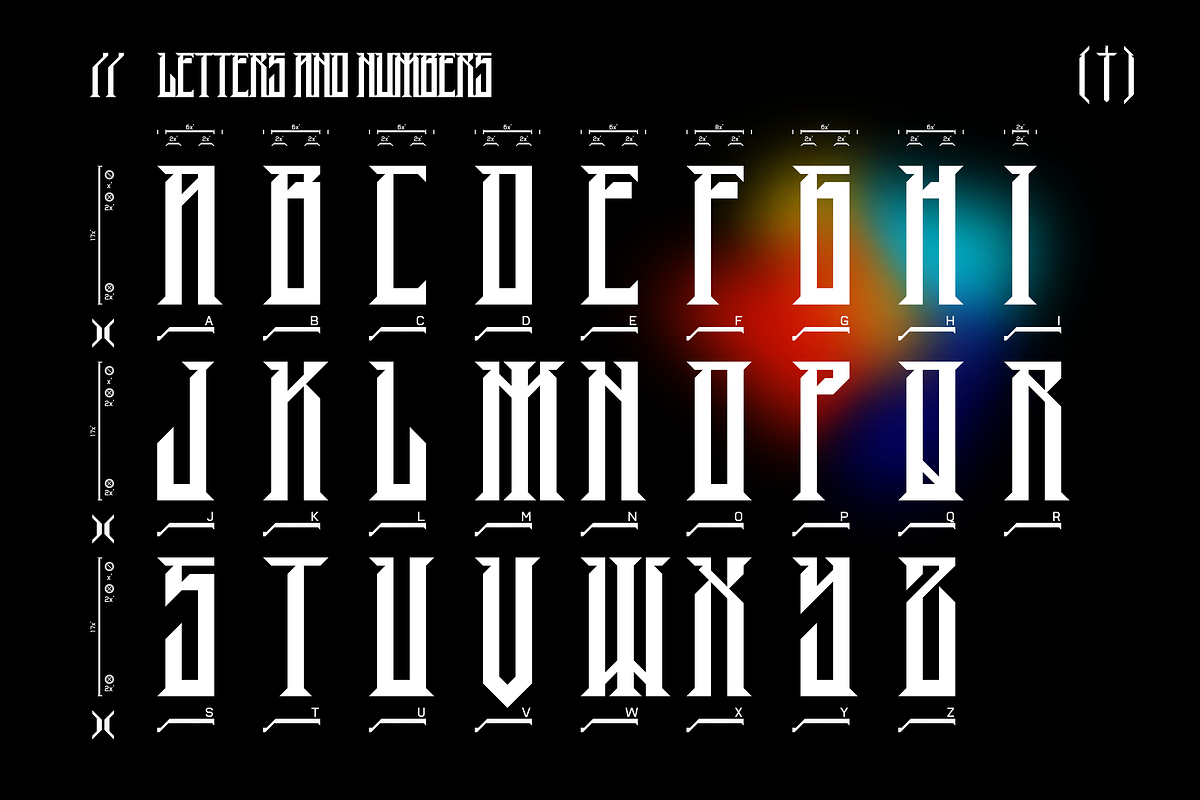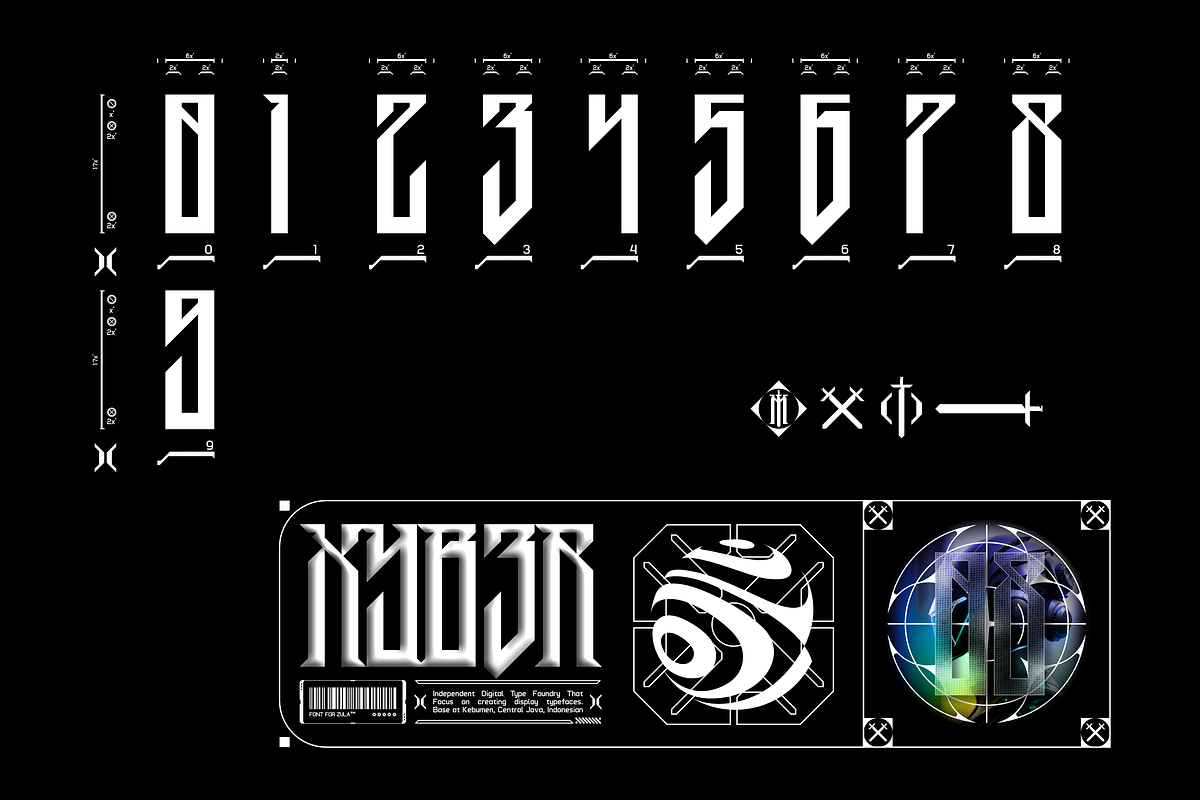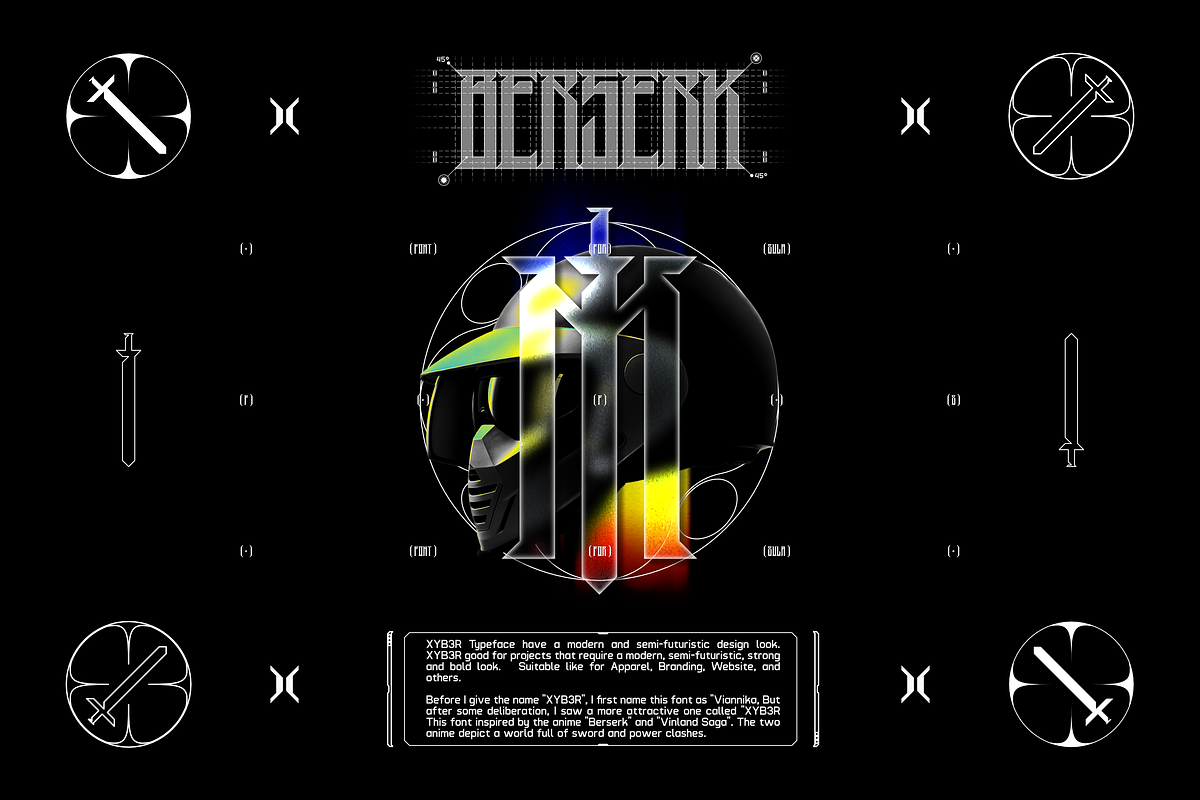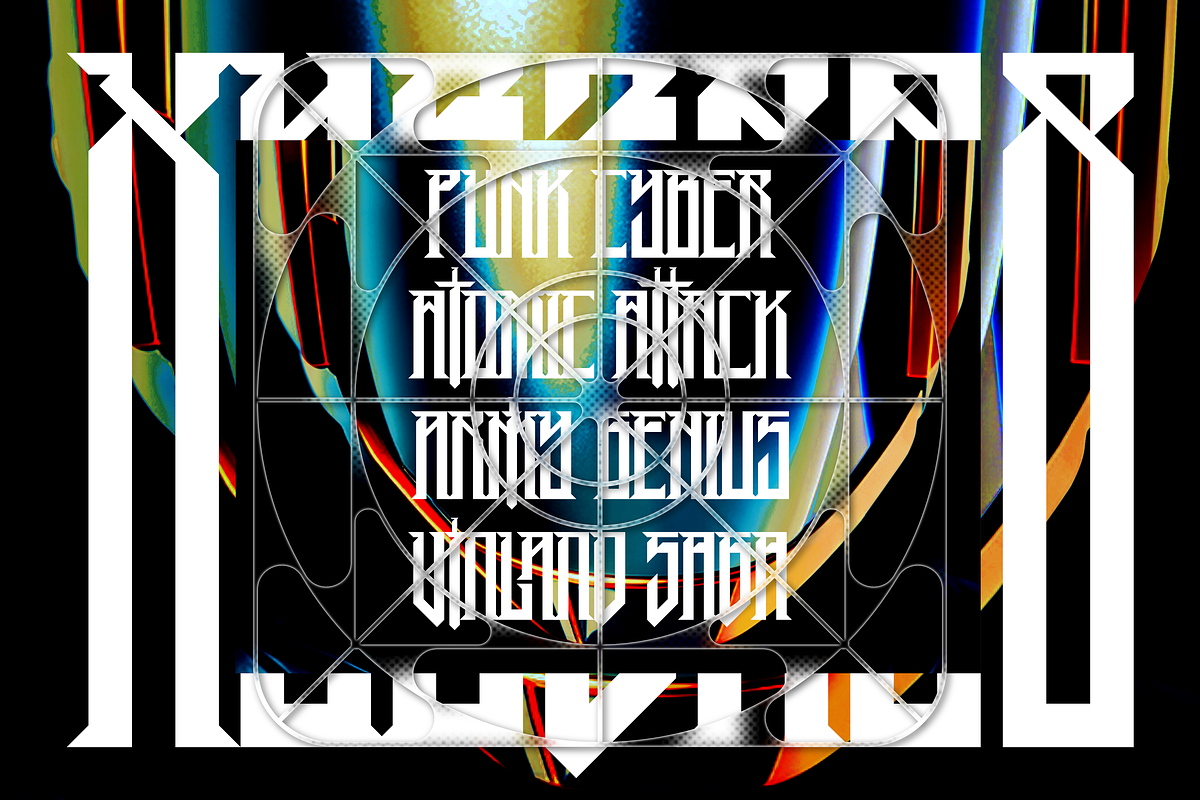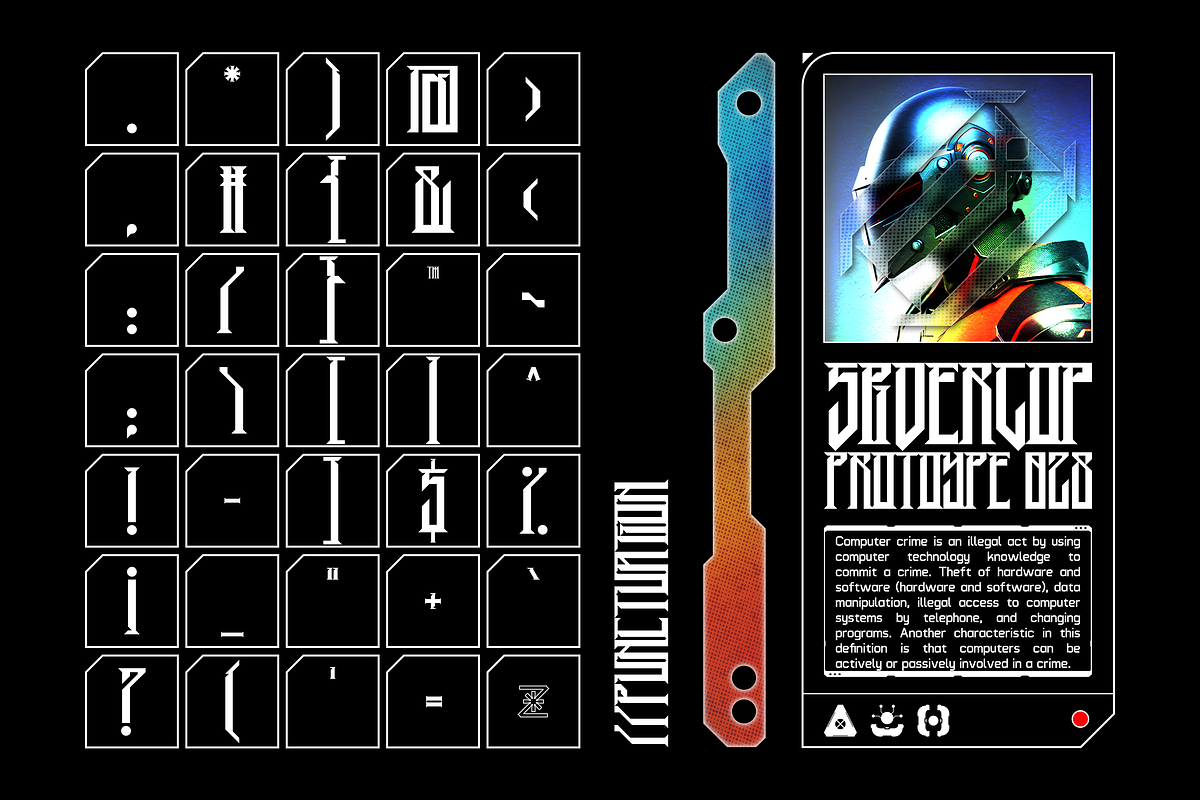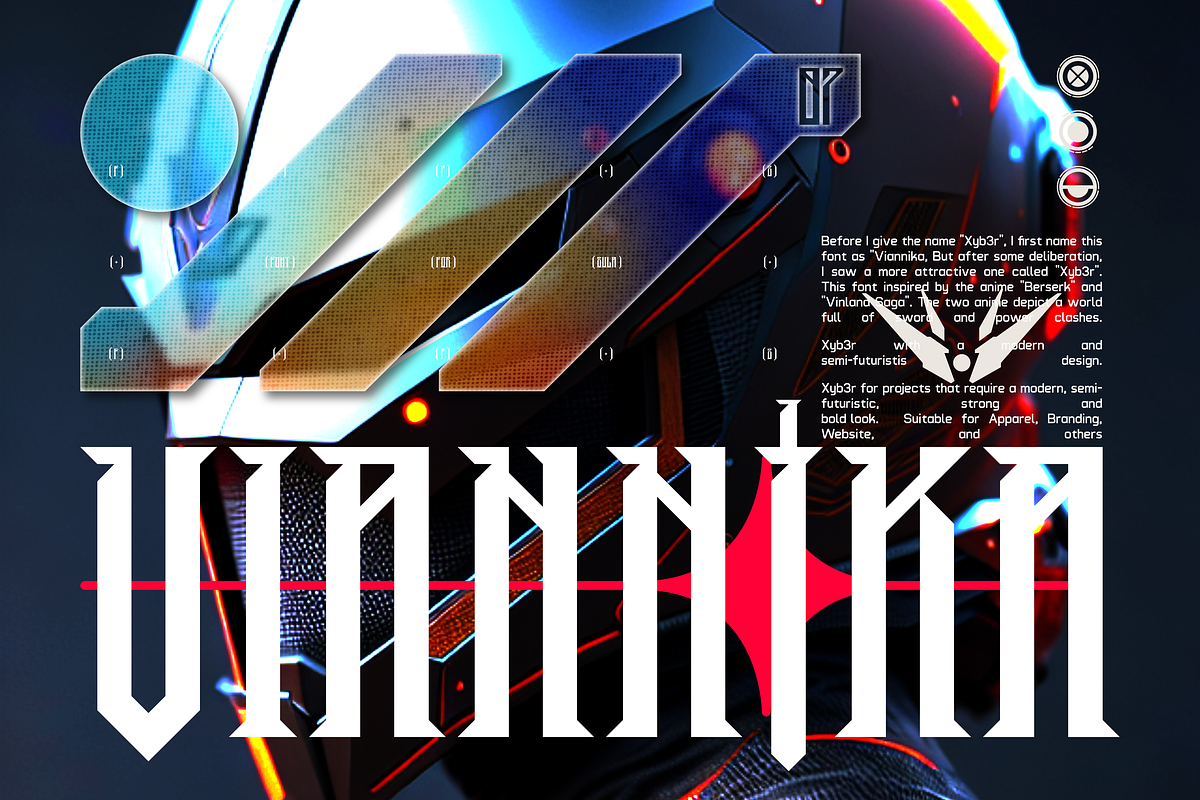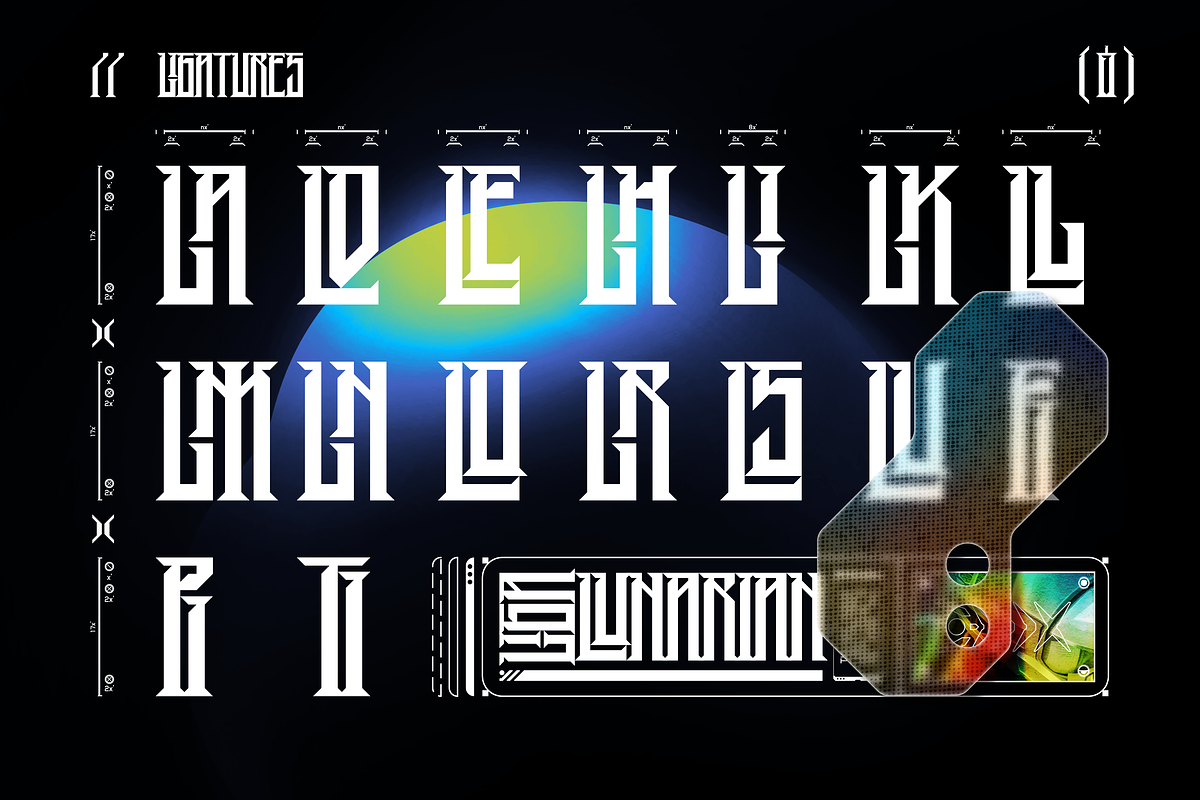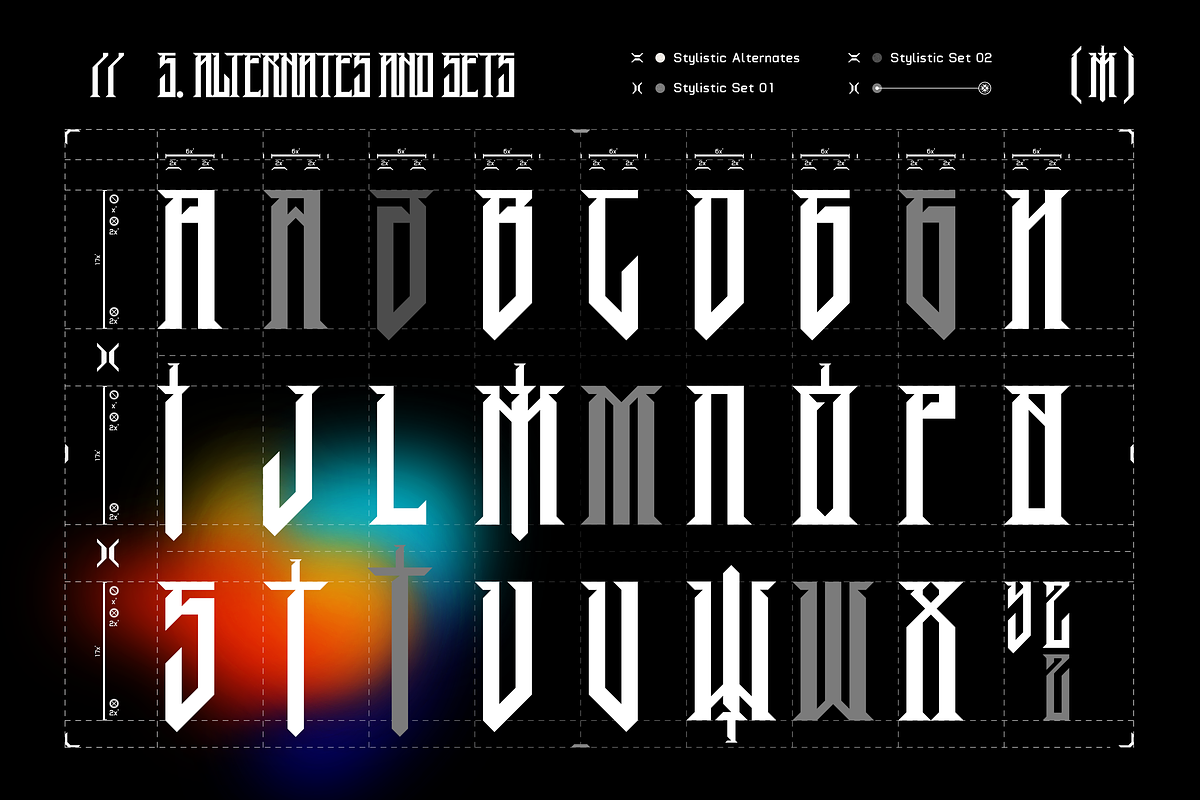
XYB3R FUTURISTIC TYPEFACE
XYB3R Typeface have a modern and semi-futuristic design look. XYB3R good for projects that require a modern, semi-futuristic, strong and bold look. Suitable like for Apparel, Branding, Website, and others.
Before I give the name "XYB3R", I first name this font as "Viannika, But after some deliberation, I saw a more attractive one called "XYB3R". This font inspired by the anime "Berserk" and "Vinland Saga". The two anime depict a world full of sword and power clashes.